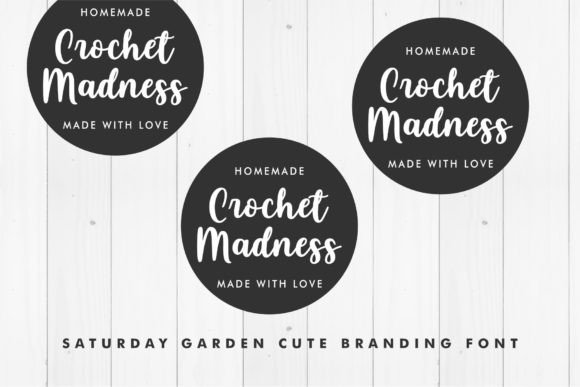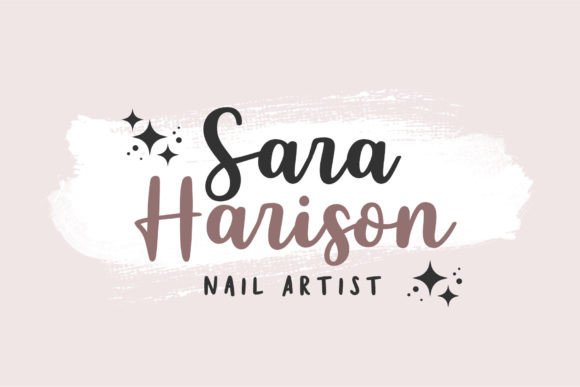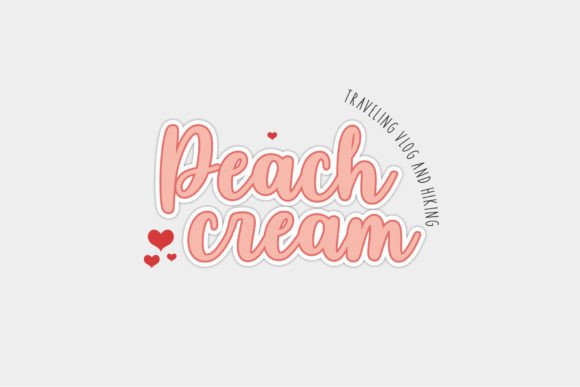
Introduction to Saturday Garden Font
Welcome to โ€˜Saturday Gardenโ€™ Font โ€“ the epitome of charm and creativity.
Tailored for those seeking a delightful touch in their designs, this font is perfect for cute branding, captivating packaging, and distinctive logo designs Let โ€˜Saturday Gardenโ€™ transform your creative projects into blooming works of art.
Saturday Garden Font offers exceptional quality and versatility, making it a valuable addition to your design toolkit. Whether you’re creating for personal projects or commercial use, Saturday Garden Font delivers professional results.